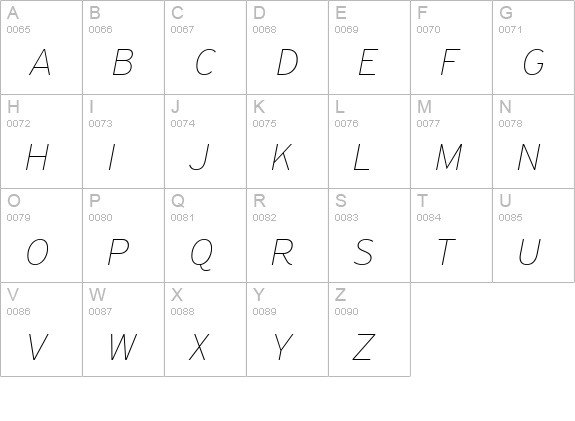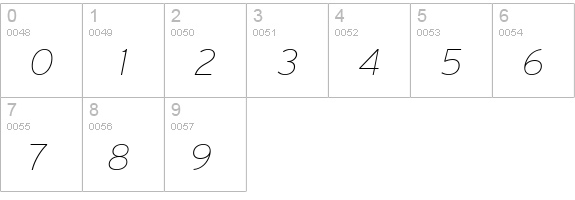
PFHighwaySansPro-ExtraThinItalic Font Details
PFHighwaySansPro-ExtraThinItalic is a sleek and modern typeface that exudes elegance and sophistication. Its extra-thin weight combined with the subtle italic angle gives it a unique and stylish appearance, making it perfect for adding a touch of refinement to your designs. This font is ideal for use in branding, editorial design, and any project that requires a high-end and contemporary look. Whether you're creating a logo, a poster, or a website, PFHighwaySansPro-ExtraThinItalic will help your work stand out and make a lasting impression. Best of all, this font is available for free download at FontsMarket.com. You can easily access and use PFHighwaySansPro-ExtraThinItalic in your projects without any cost, making it a valuable resource for designers and creatives looking to elevate their work with a sophisticated and modern typeface.